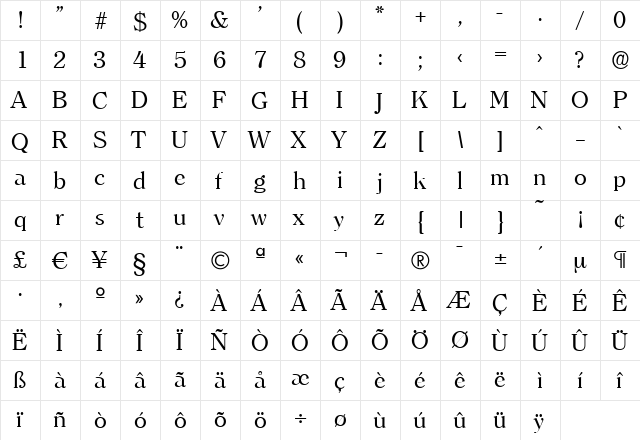
ChristianBecker Regular
Design Context for ChristianBecker Typeface
ChristianBecker is a composed and adaptable typeface that performs quietly and consistently across a wide range of design contexts.